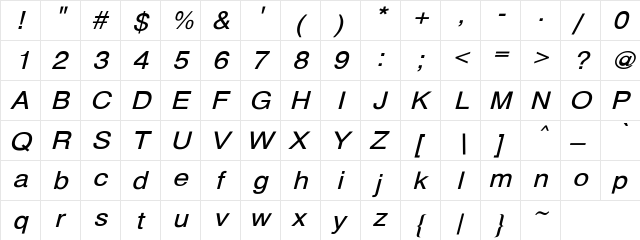
Bern Expanded Oblique 3 Regular Font Preview
Bern Expanded Oblique 3 Regular
Design Context for Bern Expanded Oblique 3 Typeface
Bern Expanded Oblique 3 offers clean, dependable letterforms without strong stylistic allegiance, making it a practical choice for designers who need flexibility. Its italic angle brings a sense of urgency and motion to the letterforms.
Pro Tip: Try Bern Expanded Oblique 3 for annotation and caption copy alongside an upright companion — the contrast in angle creates a dynamic but ordered typographic system.